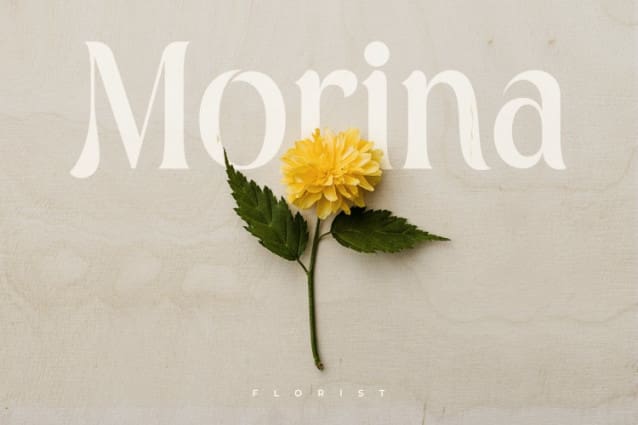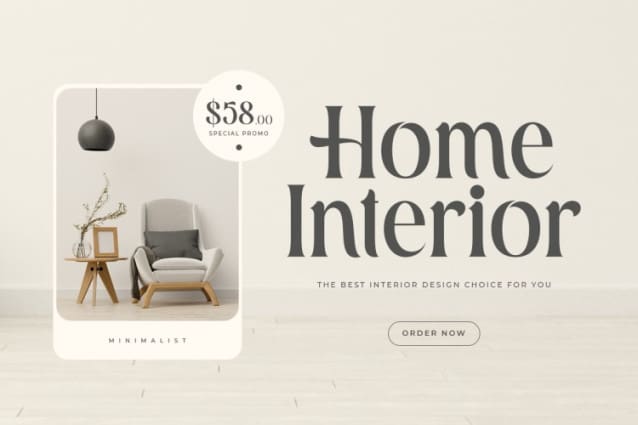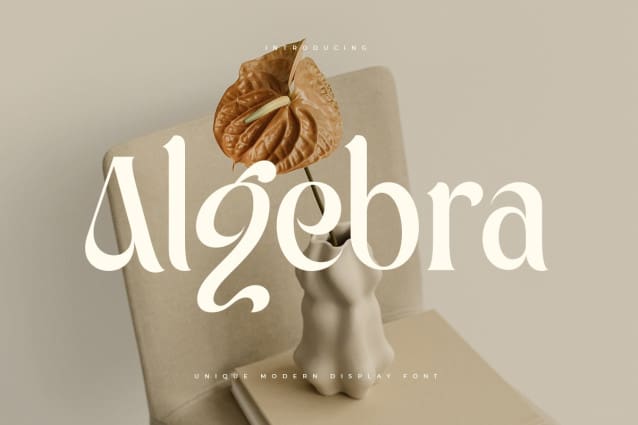
Algebra Font
Algebra Font – An Unique Modern Display font that we created special for unique branding needs, with weird shape will be ready to add value of your brand. It so nice to leverage designer or product owner that need solutions to make their design look more standout and modern. And specially for this font, We prepared any characters to help you create unlimited variations for your creative needs.